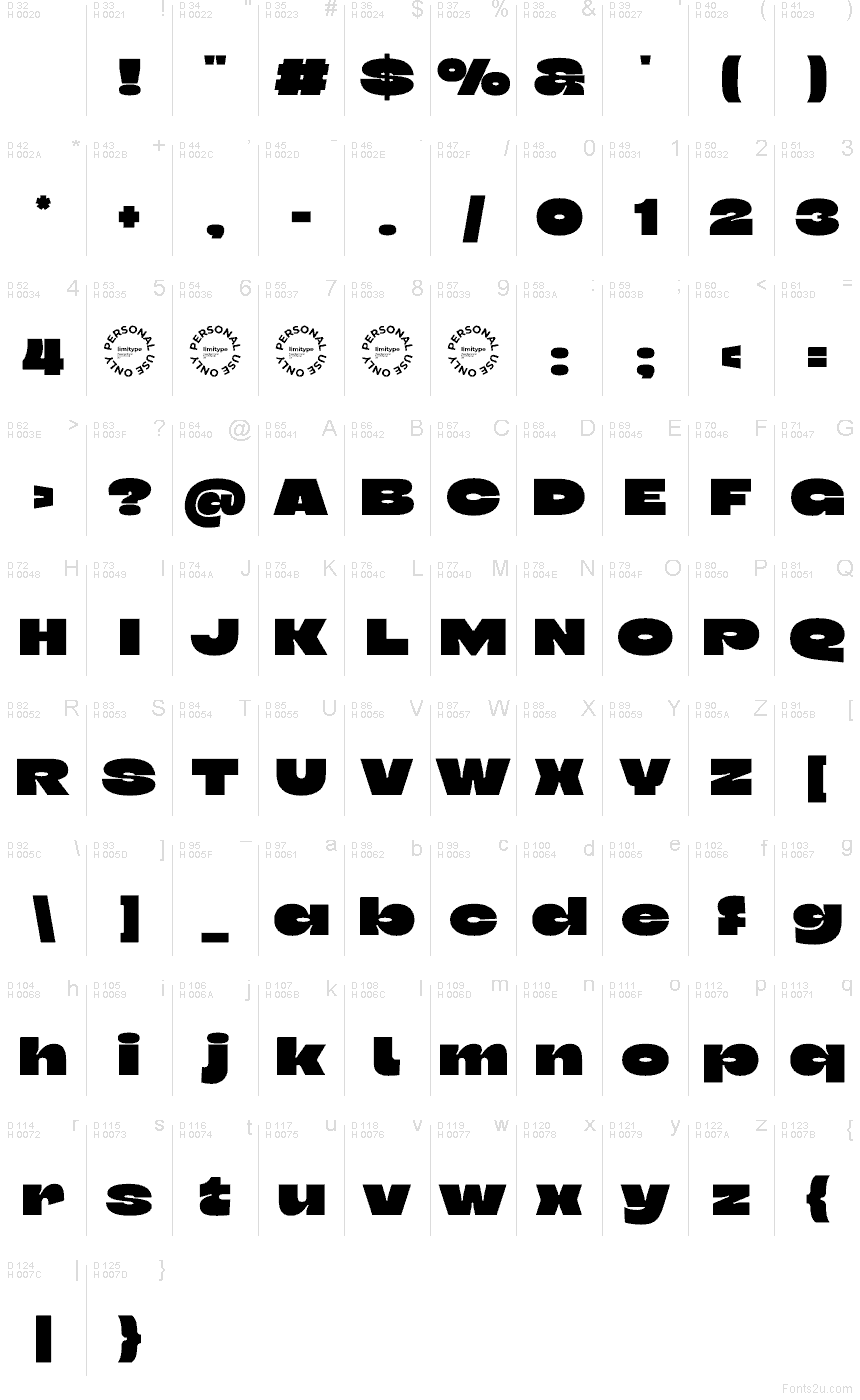
Myako Bold from Limitype is a free bold sans serif built from dense, blocky forms. Rounded letters meet hard diagonals and squared edges in a compact silhouette. The lettering feels forceful and slightly playful rather than strictly geometric.
Streetwear labels could use its dark mass and blunt curves for an assertive brand identity. The same construction suits music posters, game graphics, and sports merchandise, especially when the lettering needs to function almost like a logo. Circular forms and sharp cuts tie these uses together.